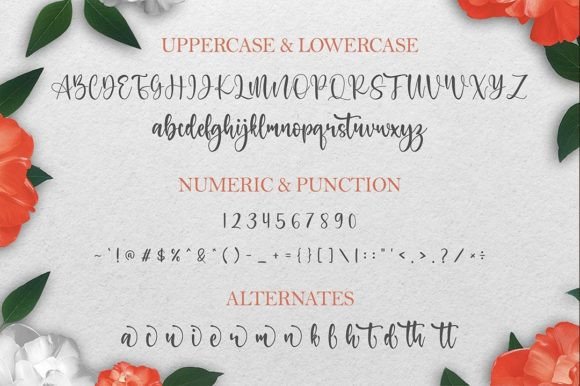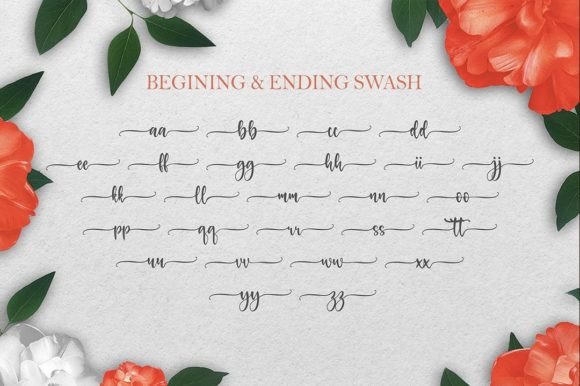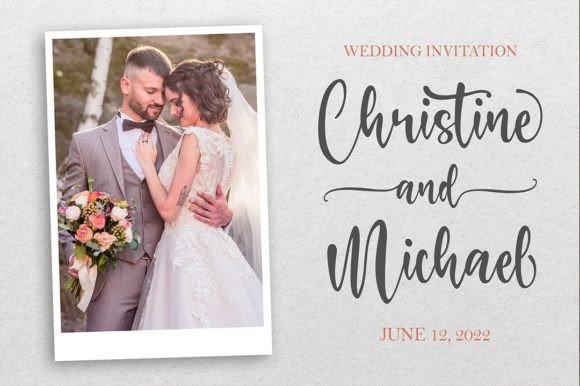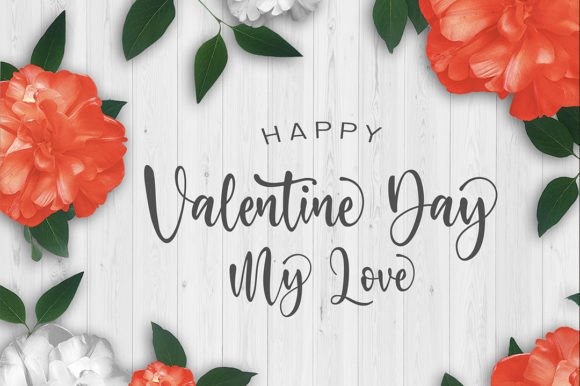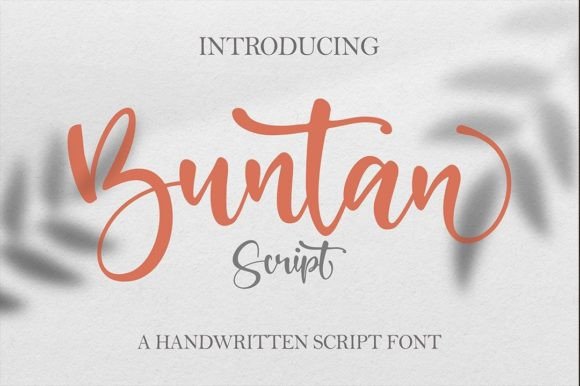
Buntan Font: A Sweet and Romantic Script Font for Designers and Crafters
Are you looking for a beautiful and elegant script font to add a touch of romance and sophistication to your designs? Look no further than Buntan Script, a stunning font that features beautiful curves in every letter. In this article, we’ll take a closer look at Buntan Script, its features, and how it can be used in various design projects.
What is Buntan Script?
Buntan Script is a sweet, romantic, and beautiful script font that is perfectly suited for traditional media and web designs. Its elegant curves and flowing lines make it an ideal choice for designers and crafters who want to add a touch of sophistication and glamour to their work.
Key Features of Buntan Script
- Beautiful Curves: Buntan Script features beautiful curves in every letter, making it a perfect choice for designs that require a touch of elegance and sophistication.
- PUA Coded: This font is PUA (Private Use Area) coded, which means that you can access all of the glyphs and sweeps with ease. This makes it easy to use and customize the font to suit your design needs.
- Traditional Media and Web: Buntan Script is perfectly suited for both traditional media and web designs, making it a versatile font that can be used in a variety of projects.
Uses of Buntan Script
Buntan Script can be used in a variety of design projects, including:
- Wedding Invitations: The romantic and elegant curves of Buntan Script make it a perfect choice for wedding invitations, save-the-date cards, and other wedding-related designs.
- Branding and Packaging: Buntan Script can be used in branding and packaging designs to add a touch of sophistication and elegance.
- Web Design: The font’s versatility makes it suitable for web designs, including blog headers, titles, and other web elements.
- Stationery and Paper Crafts: Buntan Script can be used in stationery and paper crafts, such as greeting cards, journaling, and scrapbooking.
Tips for Using Buntan Script
Here are some tips for using Buntan Script in your design projects:
- Pair it with Other Fonts: Buntan Script can be paired with other fonts to create a unique and interesting design. Try pairing it with a sans-serif font for a modern look or with a serif font for a more traditional look.
- Use it for Headings: Buntan Script is perfect for headings and titles, so use it to add a touch of elegance and sophistication to your designs.
- Experiment with Colors: Buntan Script can be used with a variety of colors, so experiment with different colors to find the one that works best for your design.
Buntan Script is a beautiful and elegant script font that is perfect for designers and crafters who want to add a touch of romance and sophistication to their designs. Its beautiful curves, PUA coding, and versatility make it a great choice for a variety of design projects. With these tips and suggestions, you can use Buntan Script to create stunning designs that will leave a lasting impression.